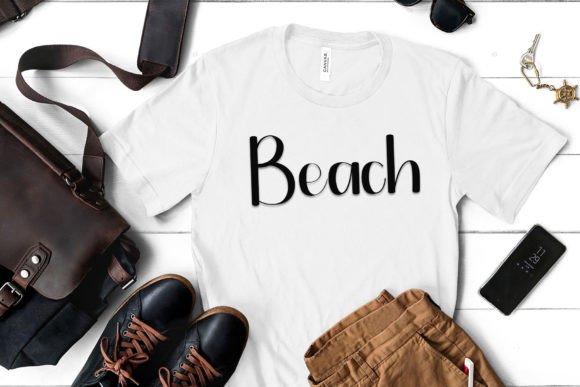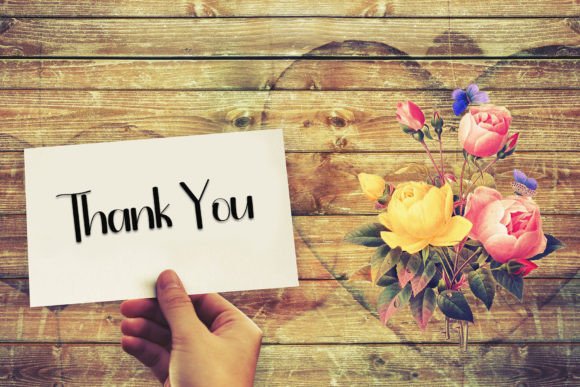
The Perfect Touch: Discovering Doodles Font
Have you ever found yourself sitting at your desk, staring at a blank canvas, trying to spark that elusive creative moment? It’s a feeling we’ve all experienced at some point or another. But what if I told you that sometimes, all it takes is the right font to set your imagination free? For designers, finding that perfect font can be a game-changer, and that’s exactly what Doodles Font is all about.
Doodles is a sweet and cursive handwritten font that’s designed to add a touch of joy and romance to any design project. Whether you’re working on a wedding invitation, a children’s book, or a romantic dinner menu, Doodles Font is sure to bring a smile to your face and a twinkle to your eye. Its gentle curves and playful flourishes make it the perfect choice for designers looking to add a personal touch to their work.
Doodles Font Key Features
- Font Family: Doodles Font is a handwritten font family available in 3 different styles ( Casual, Script, and Cursive).
- Character Set: The font includes a wide range of characters, including uppercase and lowercase letters, numbers, and punctuation marks.
- Unique Characteristics: The Doodles Font features a playful, hand-drawn design with subtle imperfections, giving it a personal and unique touch.
Doodles Font Review
Overall, I think the Doodles Font has a lot of charm and potential. ✨ The unique hand-drawn style and playful feel can add a lot of personality to a design, making it stand out from more generic fonts.
- Customizability: The Doodles Font comes in a range of weights and styles, allowing you to tailor it to your specific design needs.
- Variety: There are a lot of different doodles and illustrations available within the font, giving you a lot of options for creative expression.
- Fun and playful feel: The Doodles Font is perfect for designs that need a lighthearted or humorous tone.
- Readability: Some of the doodles and illustrations can make the text more difficult to read, especially at smaller sizes.
- Consistency: The font’s hand-drawn style can sometimes make it difficult to achieve consistent spacing and alignment.
- Overuse: The Doodles Font can be a bit too whimsical and playful for more formal or professional designs.
Overall, I think the Doodles Font is a great choice for designs that need a unique and playful touch. Just be mindful of its limitations and use it thoughtfully.
Tips for Getting the Most Out of Doodles Font
Use the Doodles Font for playful and creative designs, such as children’s books, party invitations, and social media graphics.
Experiment with different font sizes and styles to create a unique and eye-catching design.
Combine the Doodles Font with other creative elements, such as illustrations and graphics, to create a cohesive and engaging design.
The Doodles Font is ideal for:
Children’s books and educational materials
Party invitations and event promotions
Social media graphics and online advertising
Playful and creative designs in general
Alternatives to Doodles Font for Designers
Doodles Font is a fun, handwritten font used for adding a personal touch to designs. However, there are several alternatives that can provide similar results. Here are a few options:
Great Vibes Font is a modern, cursive font that works well for creating a relaxed and friendly atmosphere. It’s perfect for use in logos, headings, and body text. Great Vibes Font is more elegant and refined compared to Doodles Font, making it suitable for a wider range of designs.